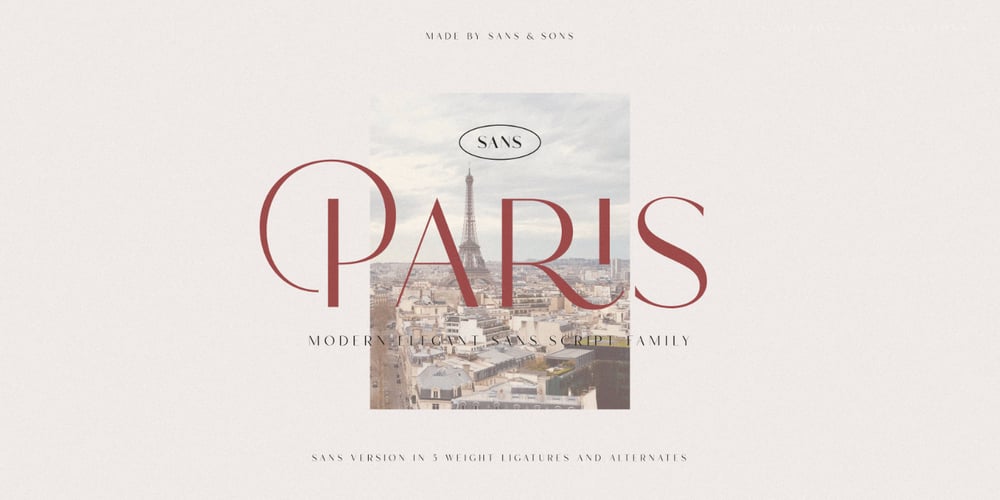
Hello Paris Sans Font Family was designed by Angga Suwista and published by Sans And Sons. Hello Paris Sans contains 5 styles and family package options. Hello Paris Sans, a Modern Sans with Elegant Style.Hello Paris Sans is a high contrast typeface so delicate, legible and lend themselves to high end branding, logo designs, product packaging, invitation & masterhead designs.Language Support:All fonts support English, French, Italian, Spanish, Portuguese, German, Swedish, Norwegian, Danish, Dutch, Finnish, Indonesian, Malay, Hungarian, Polish, Turkish, Slovenian.